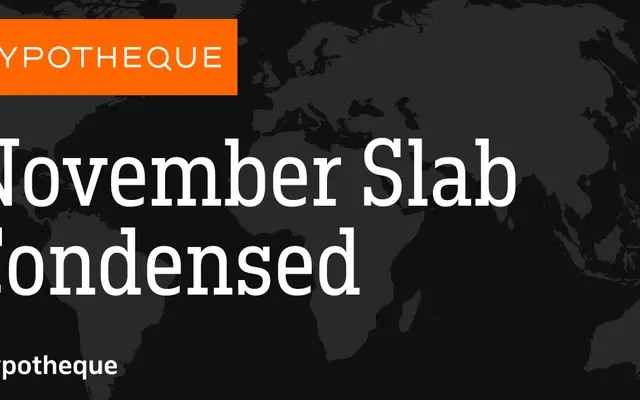
November Slab Condensed
A condensed slab serif from Typotheque's November Slab system, spanning nine weights from Hairline to Black, each with a matching italic.
Part of the November Slab family, this condensed cut sits alongside a standard and a compressed width, giving designers a three-width system with consistent weight ranges throughout. Nine weights from Hairline to Black each carry a matching italic, amounting to eighteen styles in this width alone. A variable font version is also available, covering the full November Slab system.
A condensed slab serif with an extensive weight range from Hairline to Black, part of the broader November Slab system that also includes regular and compressed widths.